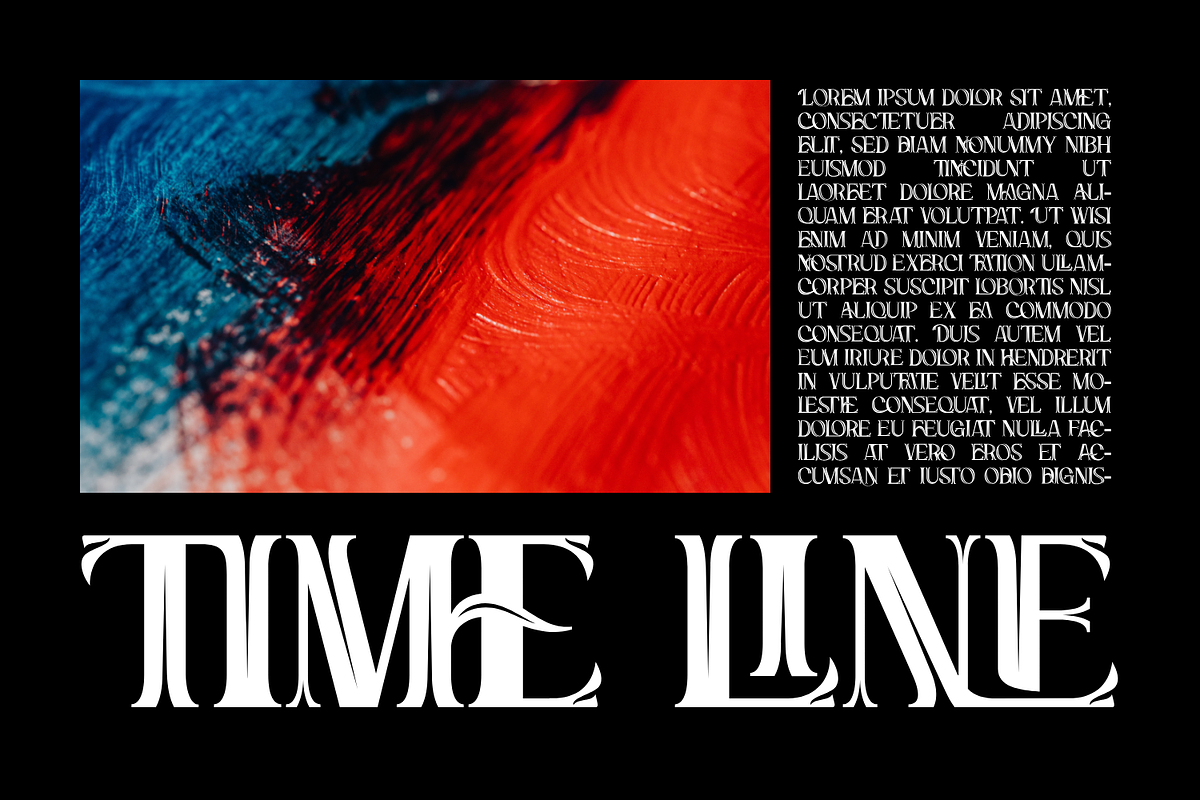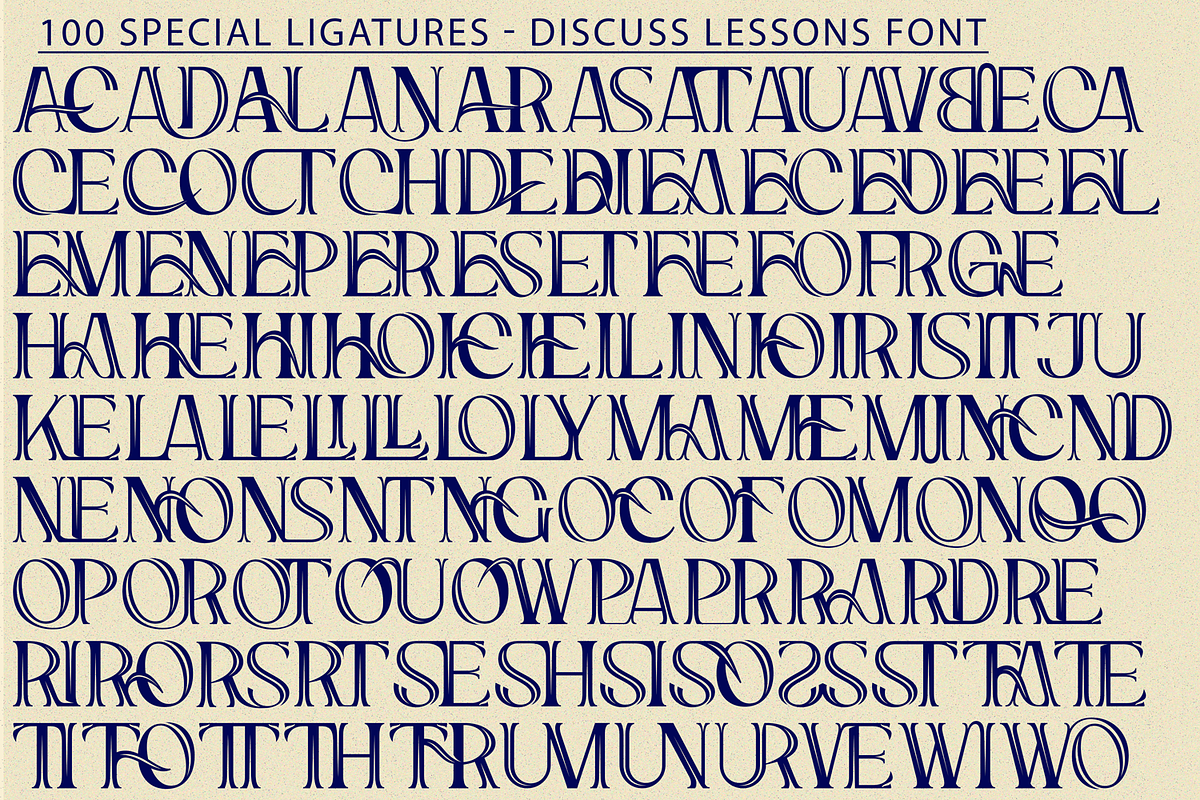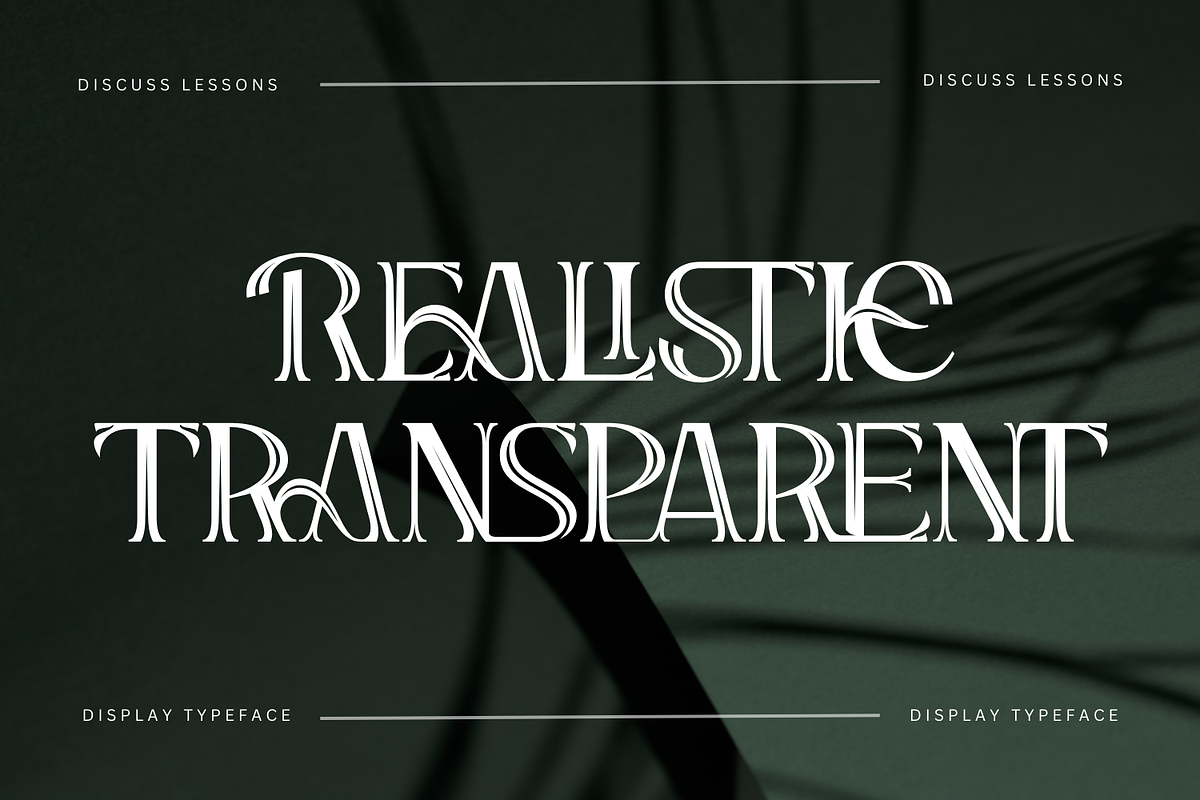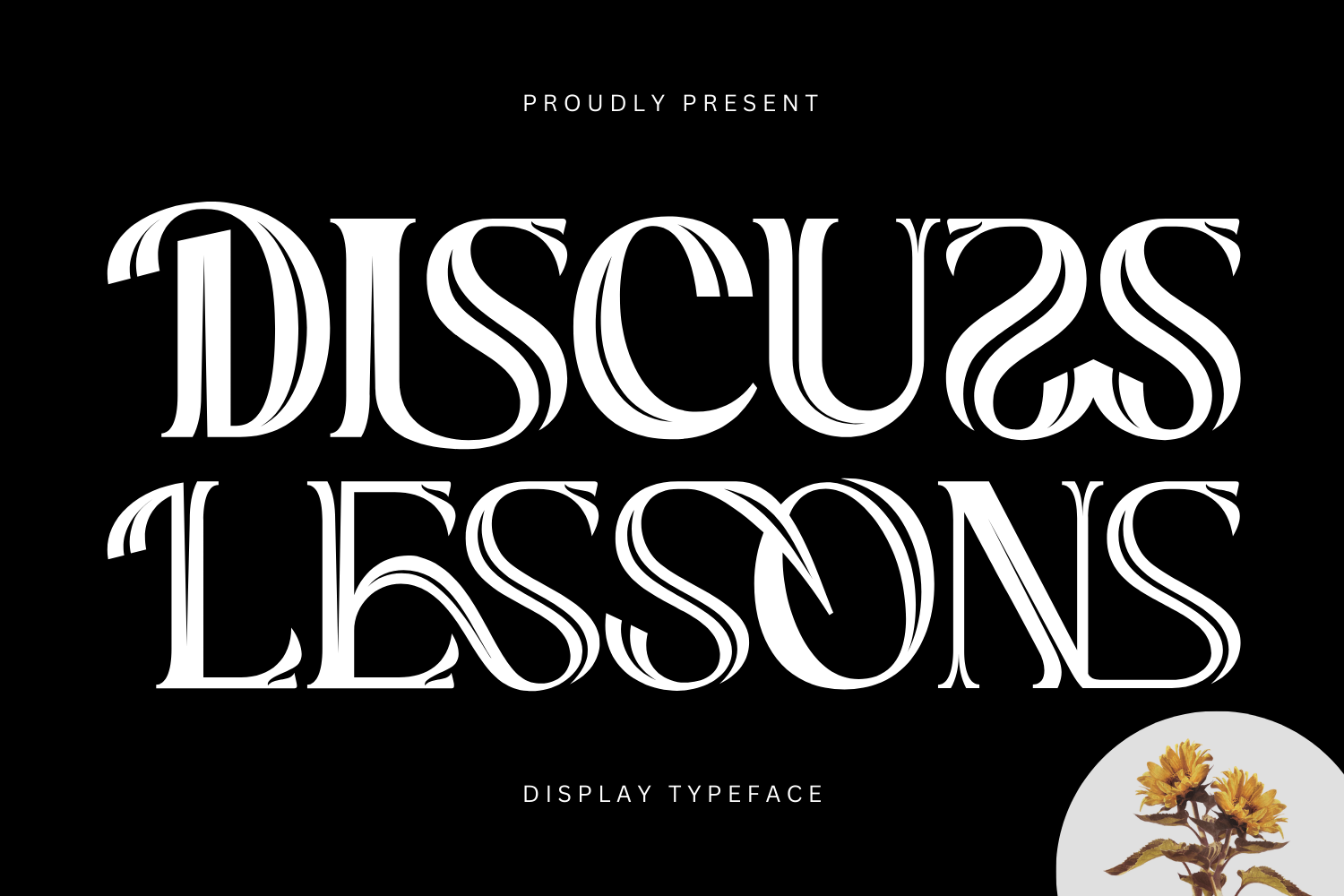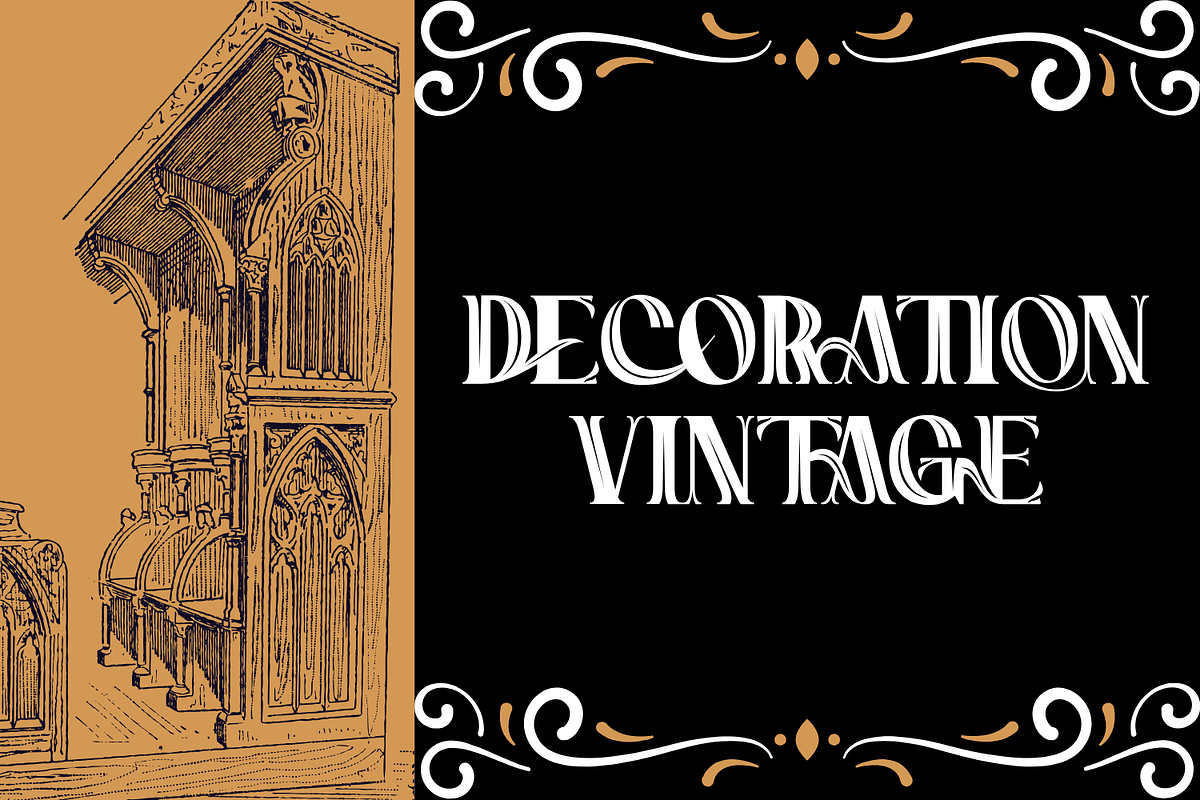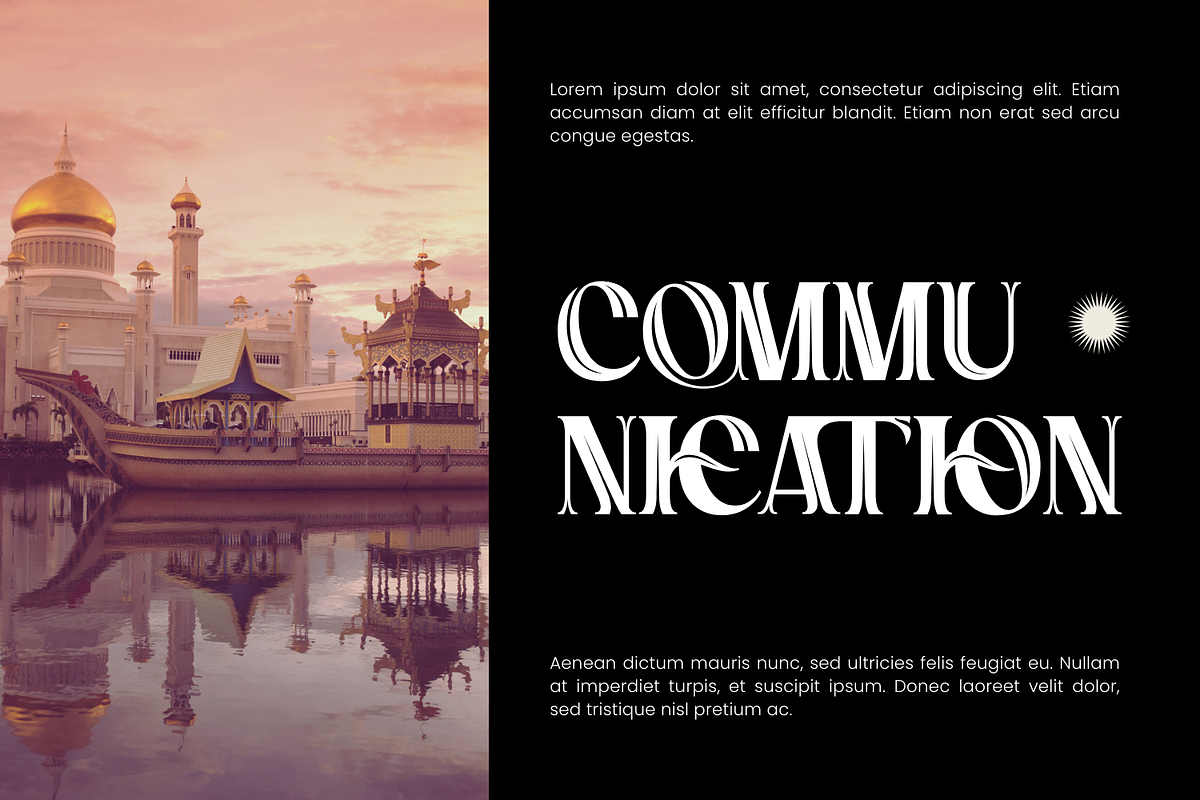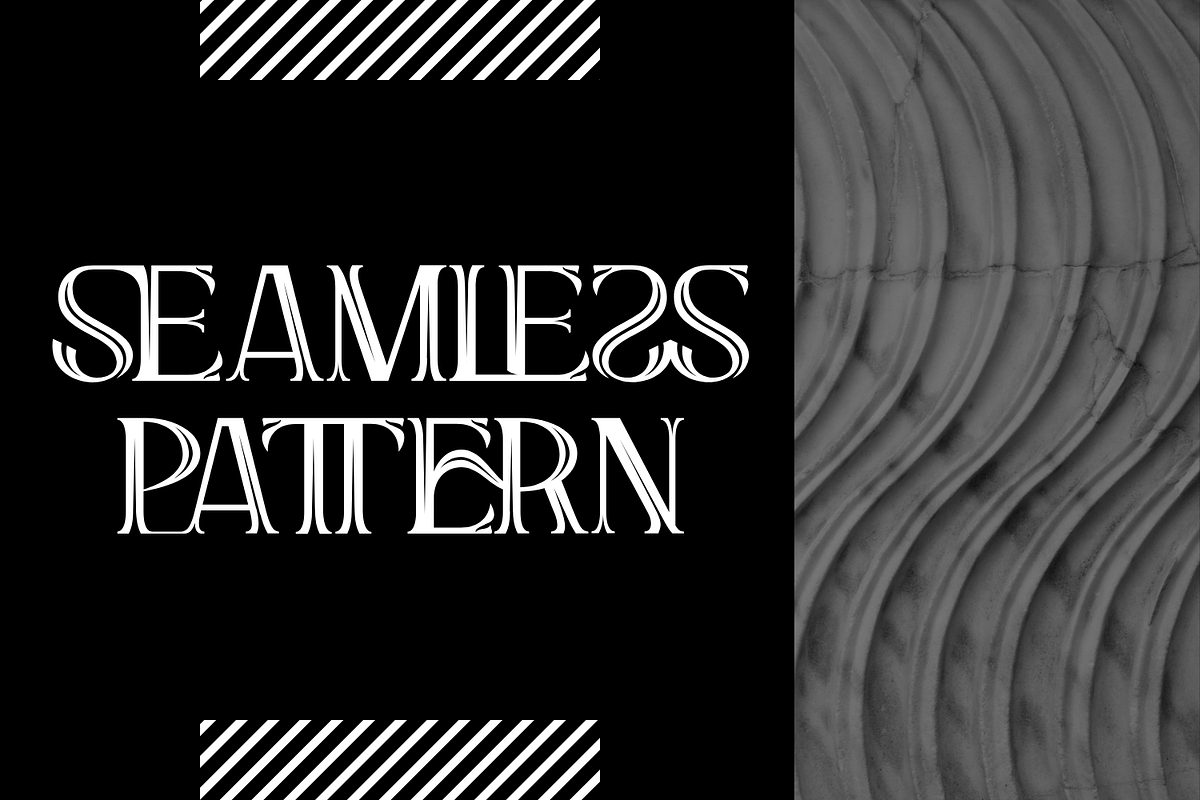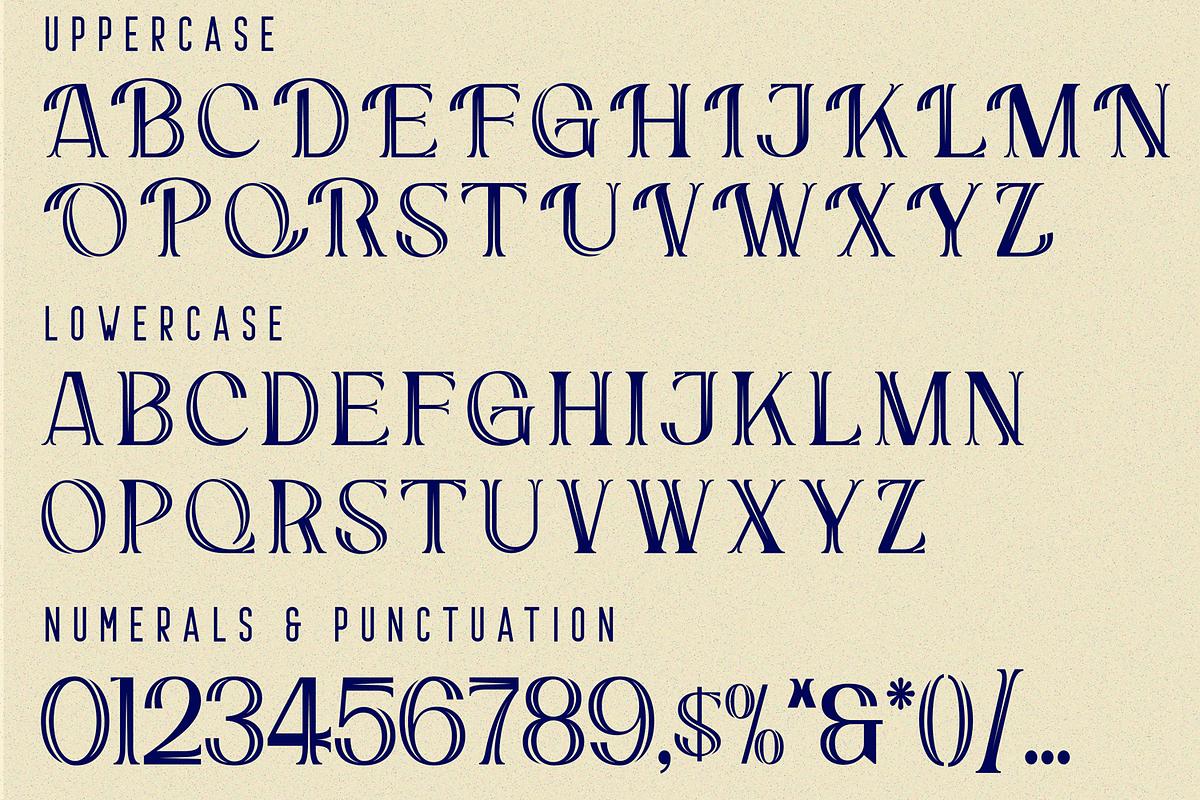
Discuss Lessons Font
Discuss Lessons Font, a modern and elegant display font that blends classic sophistication with contemporary style. The font features refined, tall letterforms with unique curved strokes and artistic flourishes, giving each character a sense of graceful movement and timeless charm. The delicate yet bold cuts and subtle detailing add an air of luxury. This font would be great for logo designs, posters, magazines, headlines and many other designs, it’s a very sophisticated font that will make your designs stand out!
Discuss Lessons was built with OpenType features and includes 100 ligatures, alternate, numbers, punctuation, and it also supports other languages.
ac ad al an ar as at au av be ca ce ch co ct de di ea ec ed ee el em en ep er es et fe fo fr ge ha he hi ho ie ic il in io ir is it ju ke la le li ll lo ly ma me mi nc nd ne ng no nt ns oc of om on oo op or ot ou ow pa pr ra rd re ri ro rs rt se sh si so ss st ta te th ti to tr tt um un ur ve wi wo